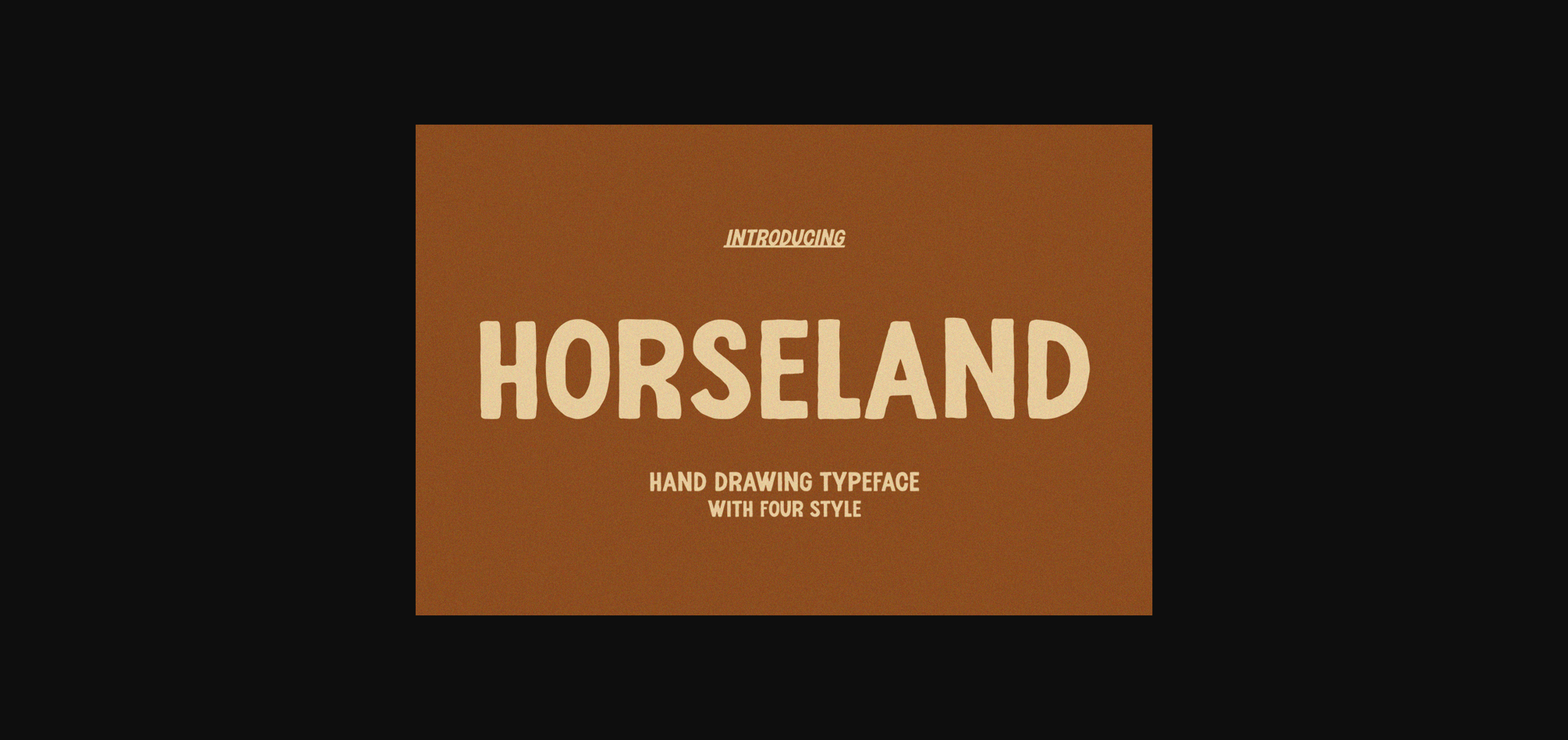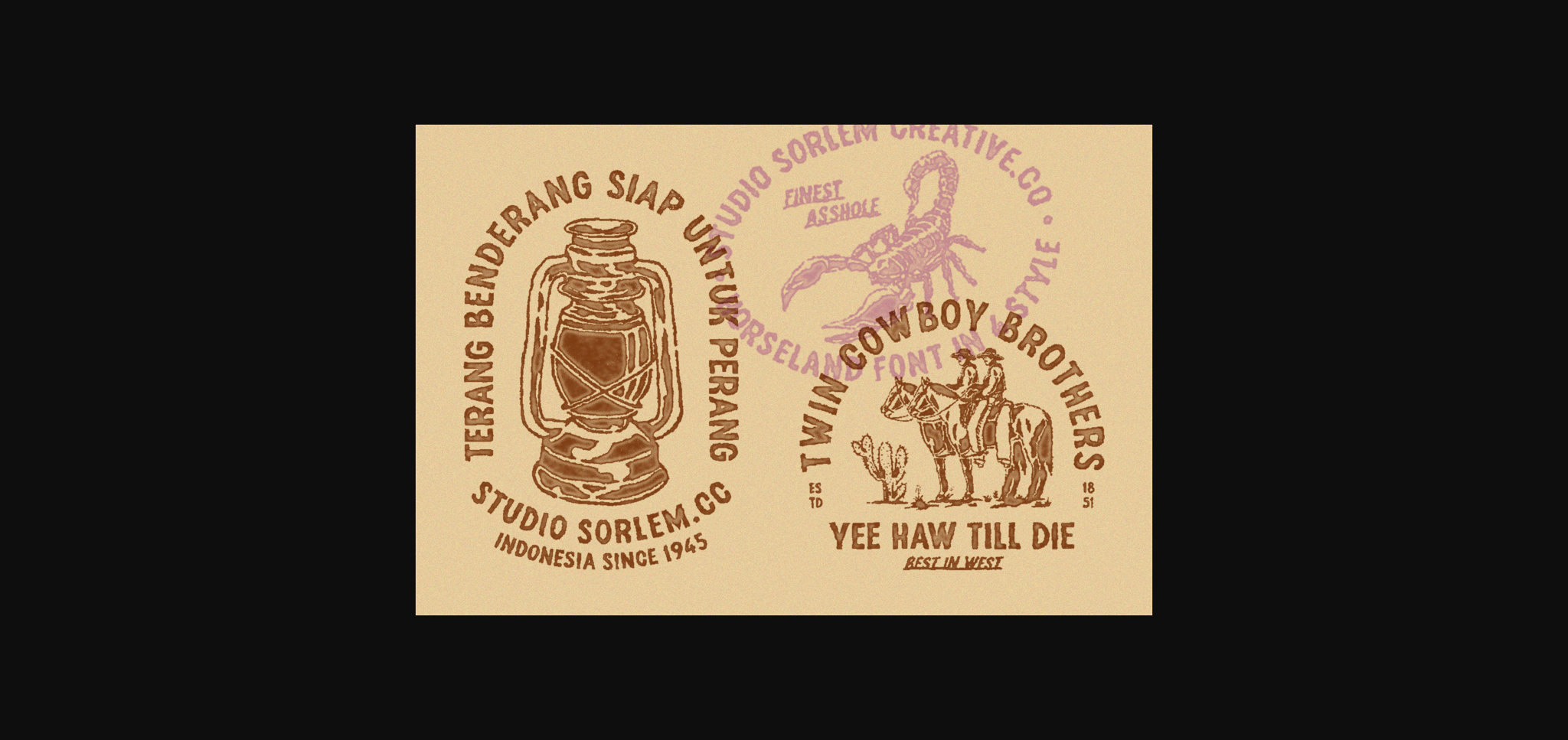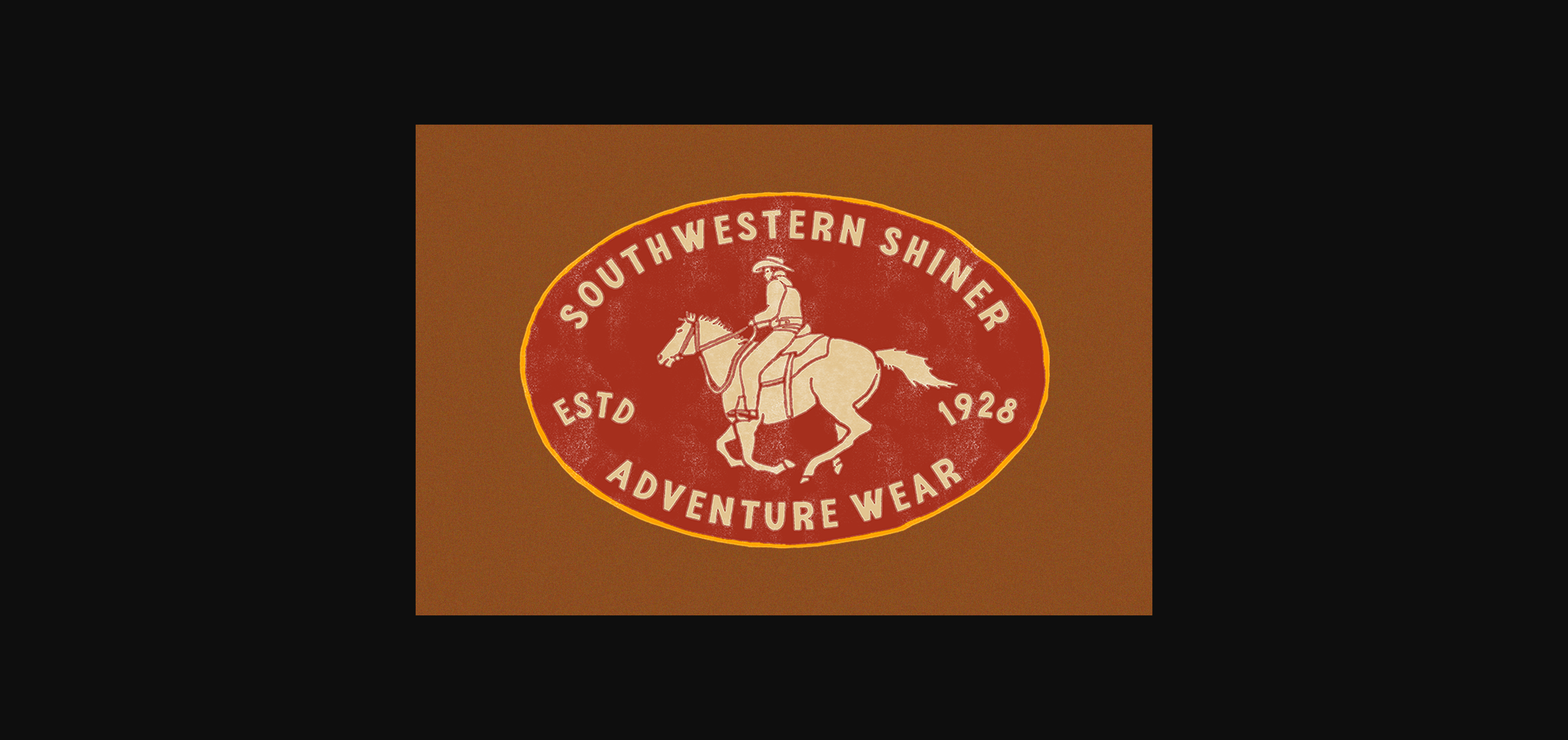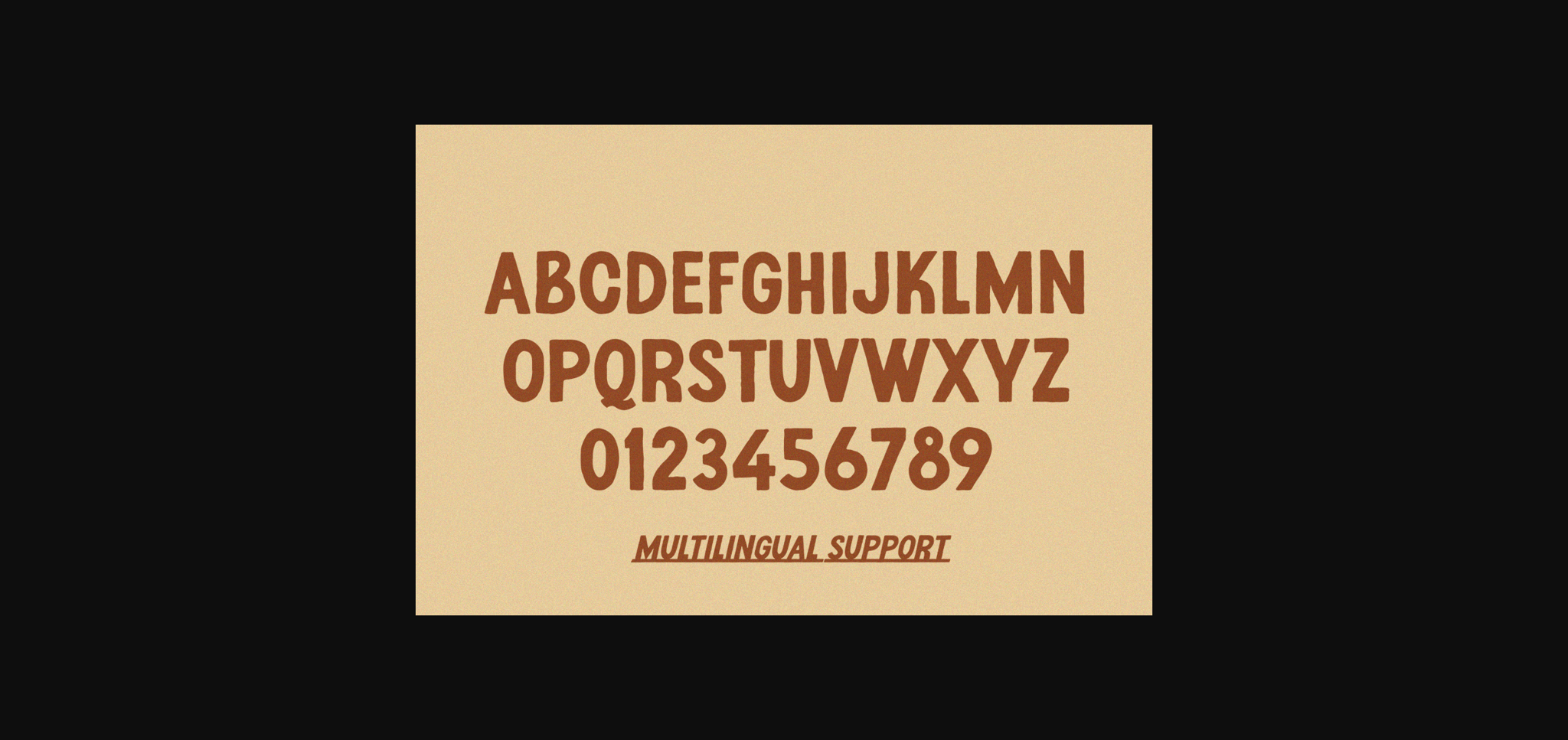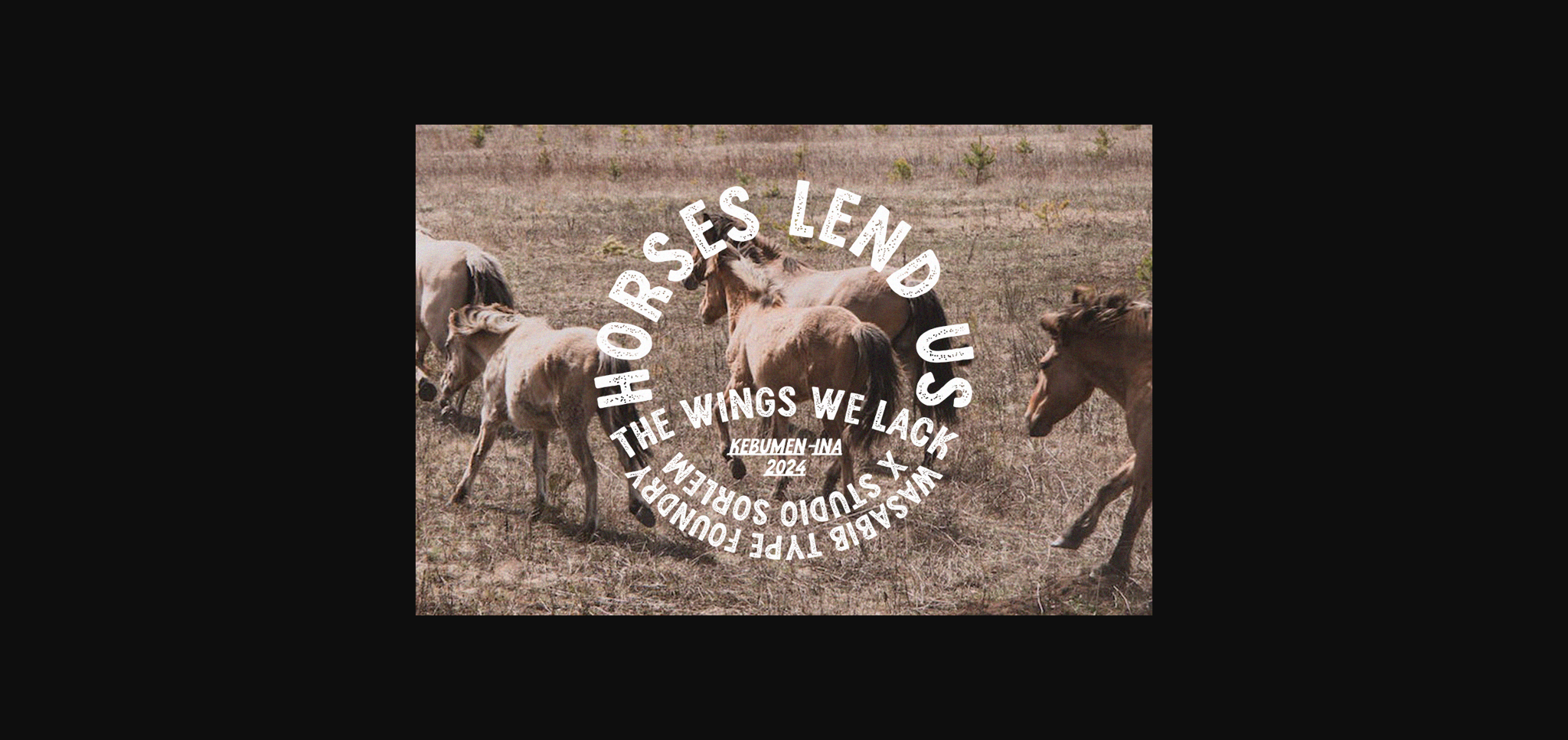
Horseland Font
About Horseland Font
Horseland is a hand-drawn vintage typeface font with a charming and nostalgic feel. This font captures the essence of handcrafted lettering, effortlessly evoking a sense of authenticity and warmth. The textured appearance of Horseland adds depth and character to your designs, making it perfect for projects that aim to achieve a vintage aesthetic.